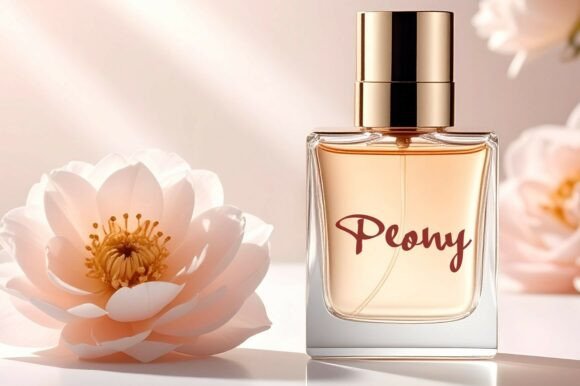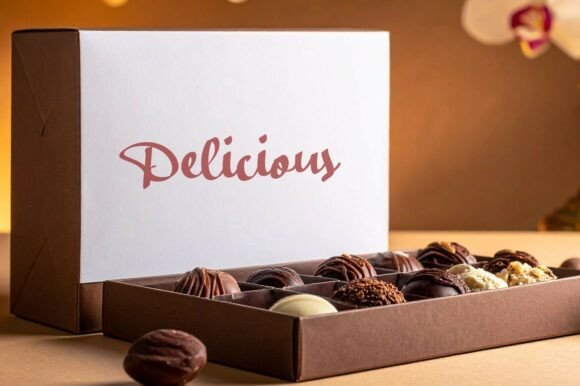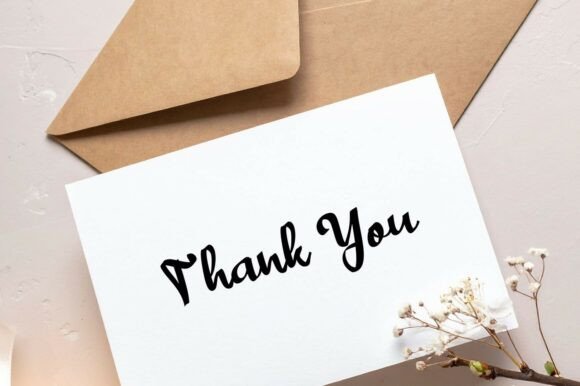
Discover the Artistry of the Asalkan Font
Have you ever stared at a blank page, waiting for the perfect font to bring your creative vision to life? That moment of inspiration can be a game-changer for any designer. For those seeking a truly unique aesthetic, look no further than the Asalkan Font. This elegant script font is designed to evoke a sense of sophistication and refinement, making it an ideal choice for high-end projects that require a touch of luxury.
The Asalkan Font’s beautifully flowing strokes and refined balance between thick and thin lines create a sense of movement that’s both captivating and elegant. With its dramatic swashes, ligatures, and stylistic alternates, this font is perfect for designers looking to add a bespoke feel to their work. Whether you’re working on a logo, brochure, or marketing campaign, the Asalkan Font is sure to elevate your design and make it stand out.
- Unique Characteristics: Asalkan Font features a unique blend of traditional and modern design elements, with intricate details and subtle nuances that set it apart from other fonts.
Asalkan Font Review
Asalkan Font is a typeface that caught my attention with its unique and bold design. ✨ The font’s versatility is one of its strongest points, making it suitable for a wide range of applications, from headlines to body text. ✨ Its bold and modern look gives it a premium feel, perfect for brands looking to make a statement.
One of the things I appreciate about Asalkan Font is its legibility, even at smaller font sizes. ✨ This is particularly important for digital applications, where text can often get lost in the background. However, I do have a few concerns.
- ⚠️ Limited language support: Asalkan Font seems to be focused primarily on Latin-based languages, which might limit its use in other regions.
- ⚠️ Not ideal for long blocks of text: While Asalkan Font is great for headlines, it can become tiring to read in large quantities. This might make it less suitable for books or other publications.
Overall, I think Asalkan Font is a solid choice for designers looking for a bold and modern typeface. However, its limitations should be taken into consideration before making a final decision.
Asalkan Font is a beautiful script font that is perfect for:
- Personalized gifts and cards
Alternatives to Asalkan Font for Designers
Montserrat is a modern sans-serif font that is highly legible and versatile. It is ideal for use in digital products, such as mobile apps, websites, and social media platforms. Montserrat is a great alternative to Asalkan Font as it has a similar clean and minimalistic aesthetic, but with a more contemporary feel.
Open Sans is a popular sans-serif font that is highly legible and adaptable to different screen sizes. It is a great choice for use in digital products, as well as in print materials such as brochures and business cards. Open Sans is a good alternative to Asalkan Font as it has a similar friendly and approachable feel, but with a more neutral tone.
Lato is a modern sans-serif font that is highly legible and versatile. It has a clean and minimalistic aesthetic, making it ideal for use in digital products, as well as in print materials such as magazines and newspapers. Lato is a good alternative to Asalkan Font as it has a similar elegant and sophisticated feel, but with a more modern twist.
Arimo is a sans-serif font that is highly legible and adaptable to different screen sizes. It has a clean and minimalistic aesthetic, making it ideal for use in digital products, as well as in print materials such as business cards and brochures. Arimo is a good alternative to Asalkan Font as it has a similar friendly and approachable feel, but with a more geometric and modern feel.